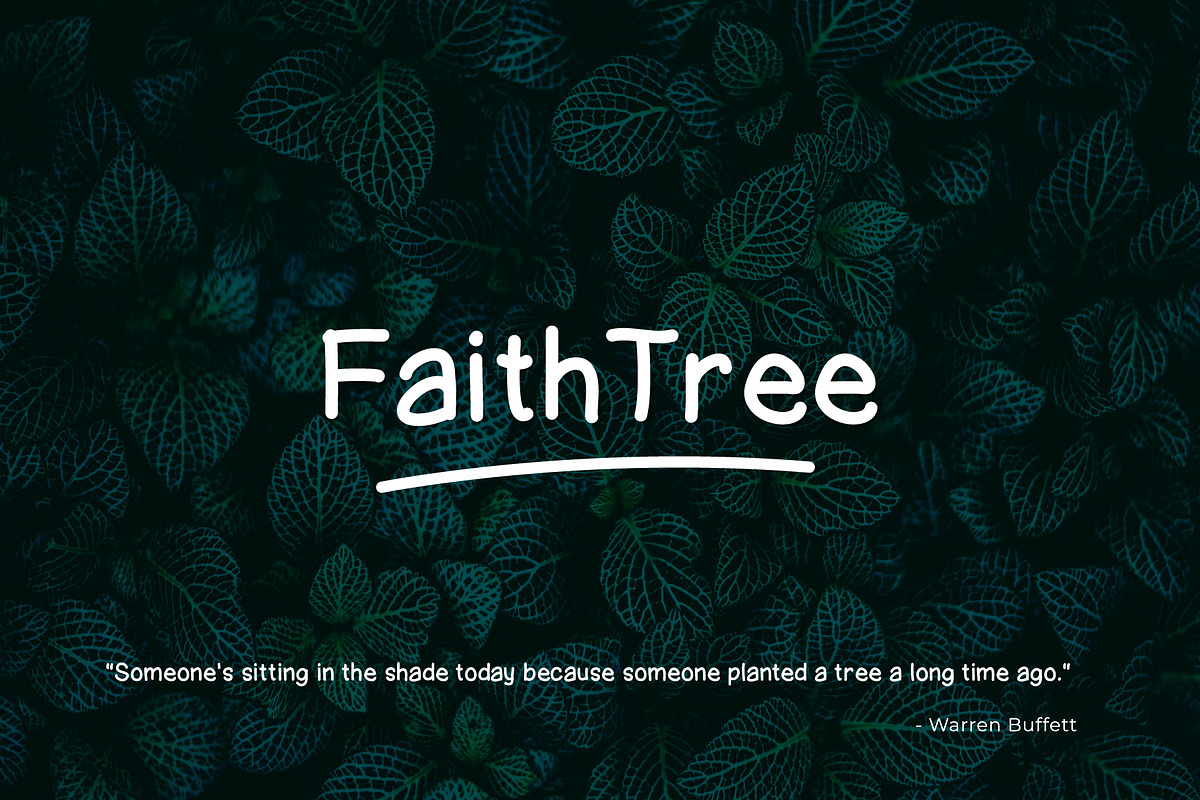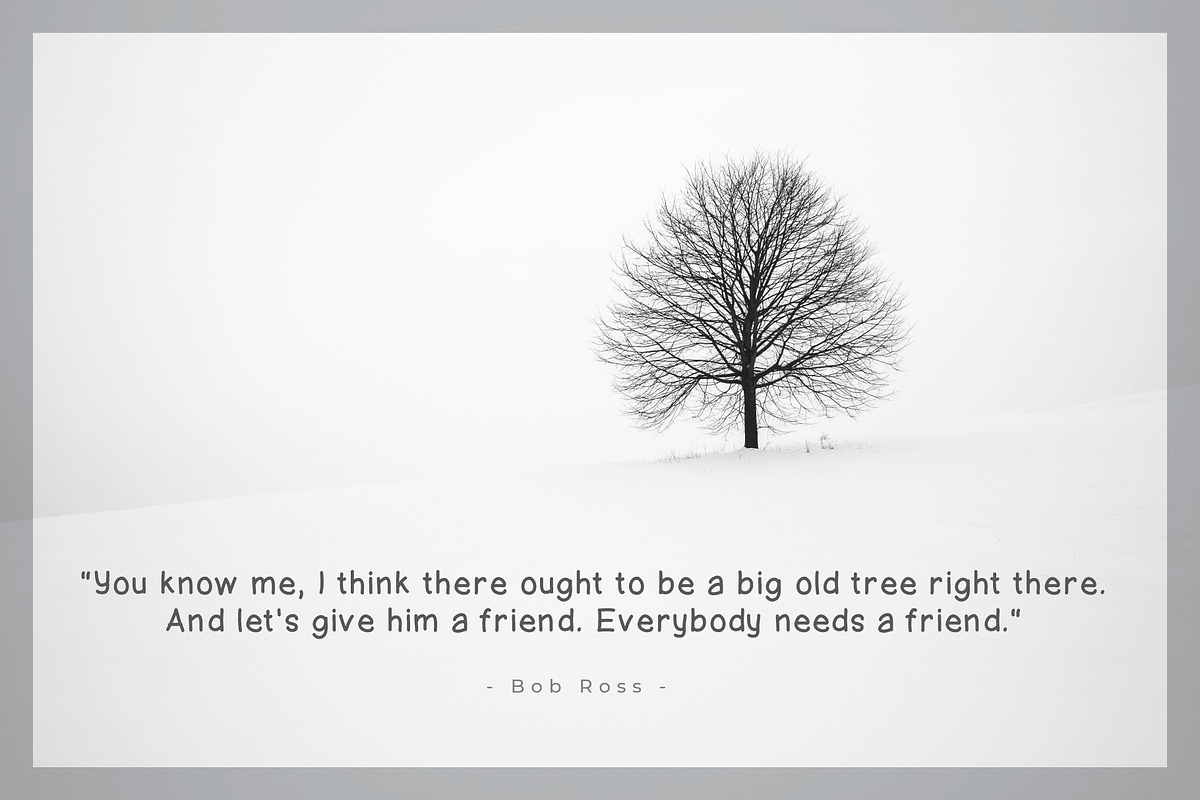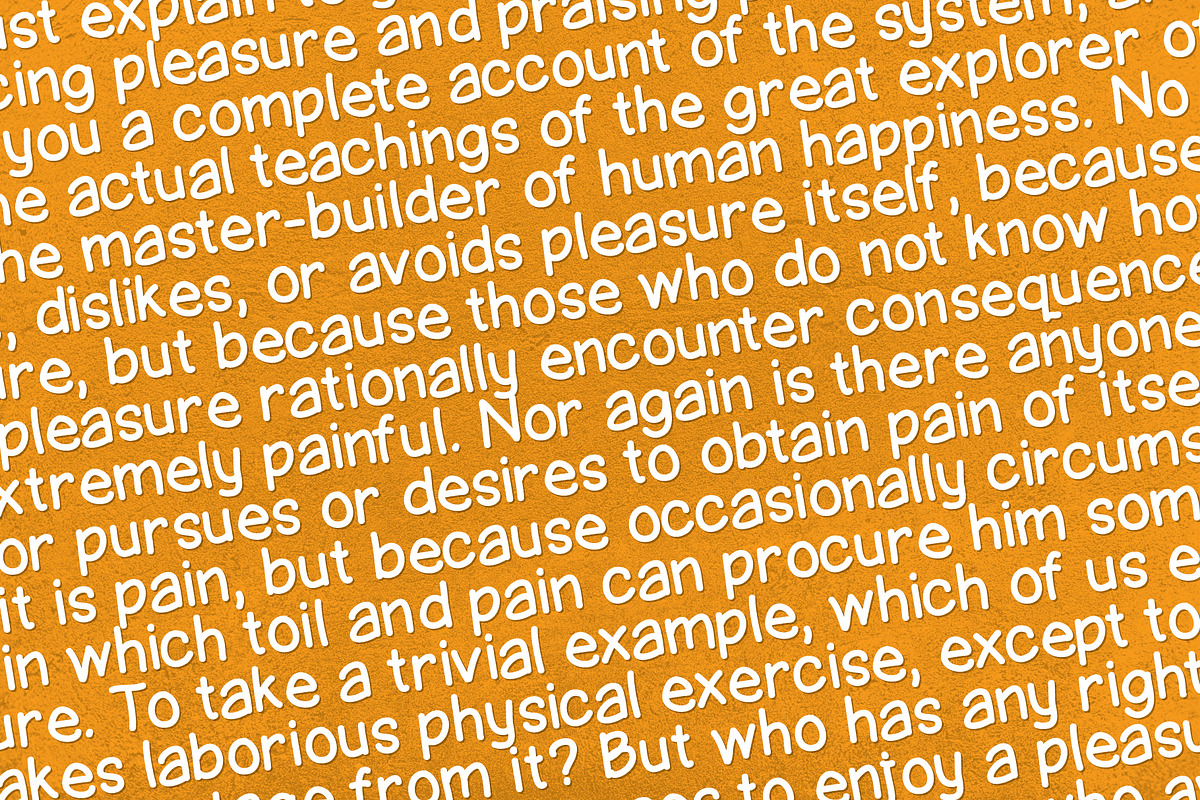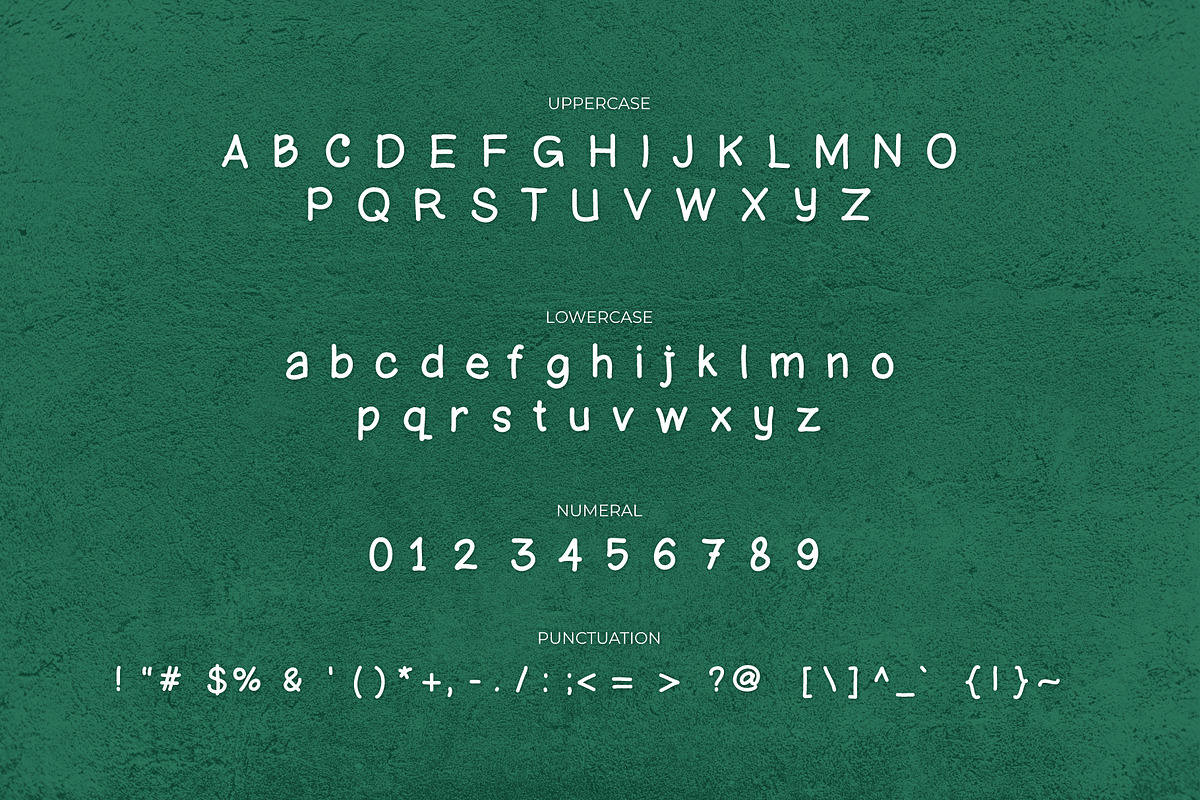
Faith Tree a Handwritten Font
Faith Tree is a simple but playful handwritten font.
It comes with uppercase, lowercase, numerals and minimal punctuations. This font can always be the right choice for a lot of creative work and perfect for nursery wall art, children’s books and everything whimsy.